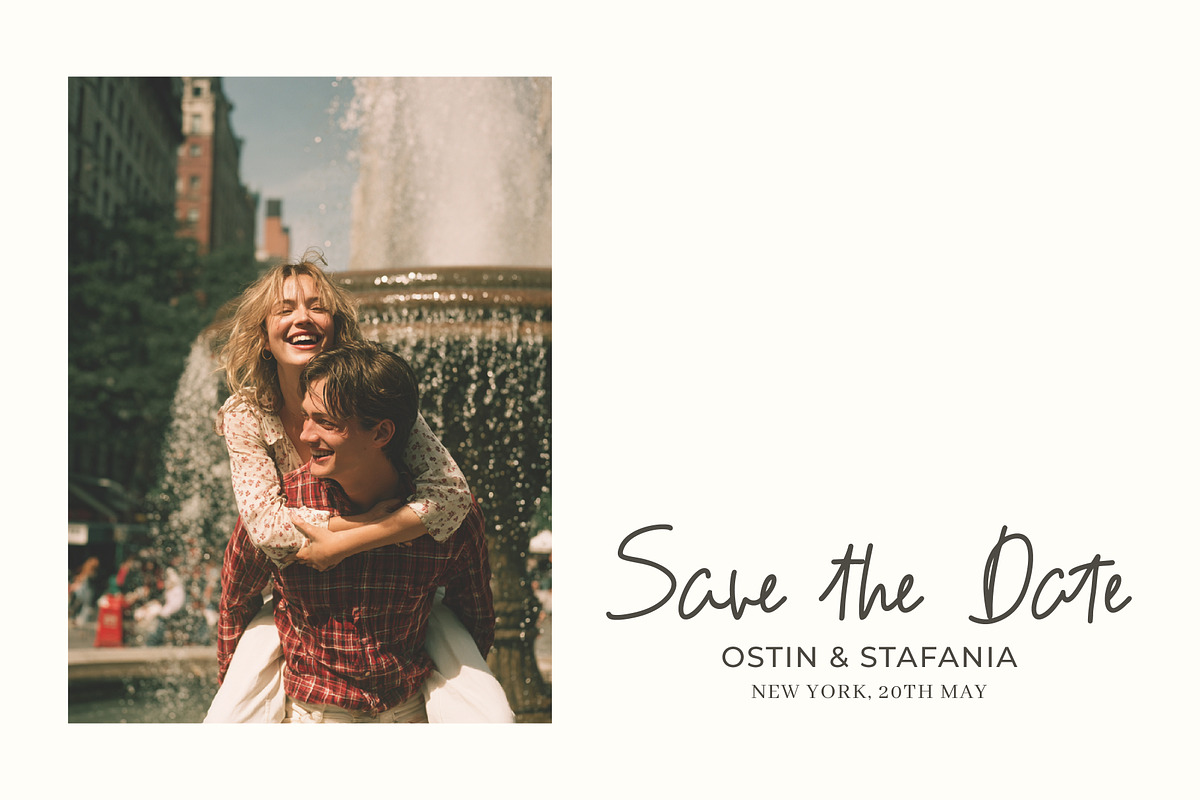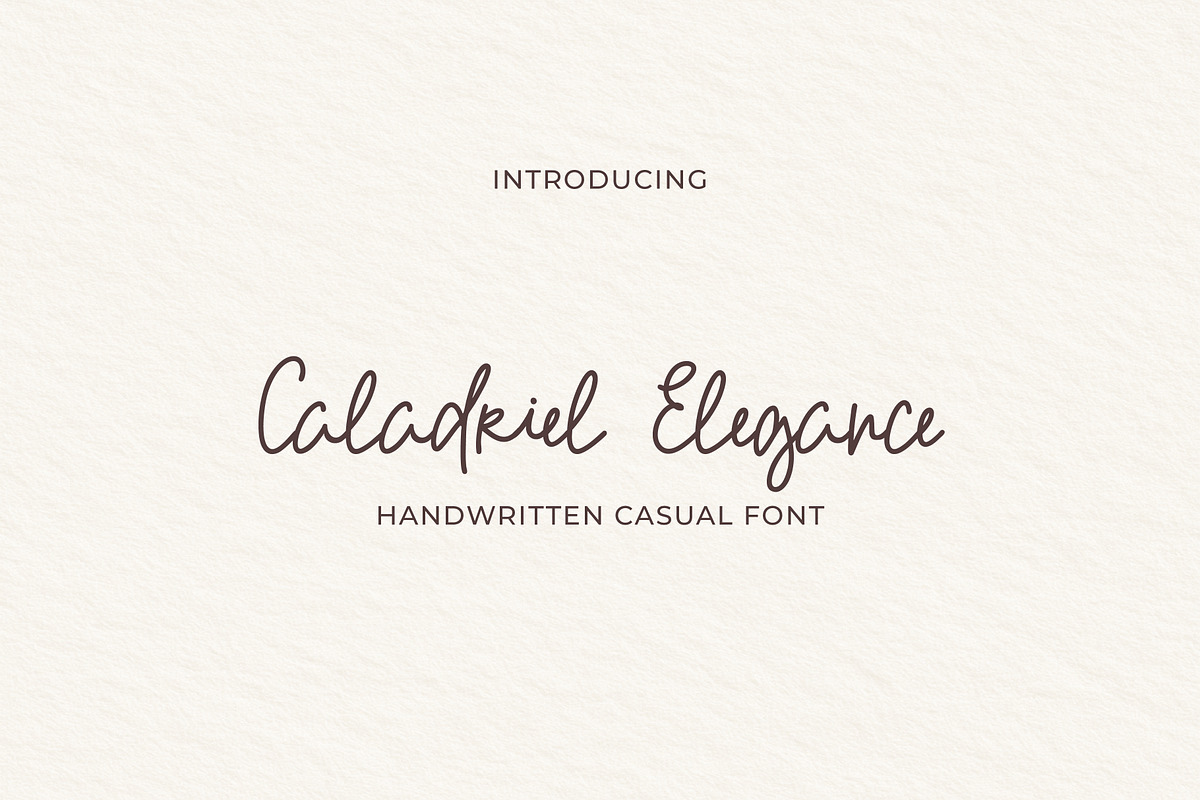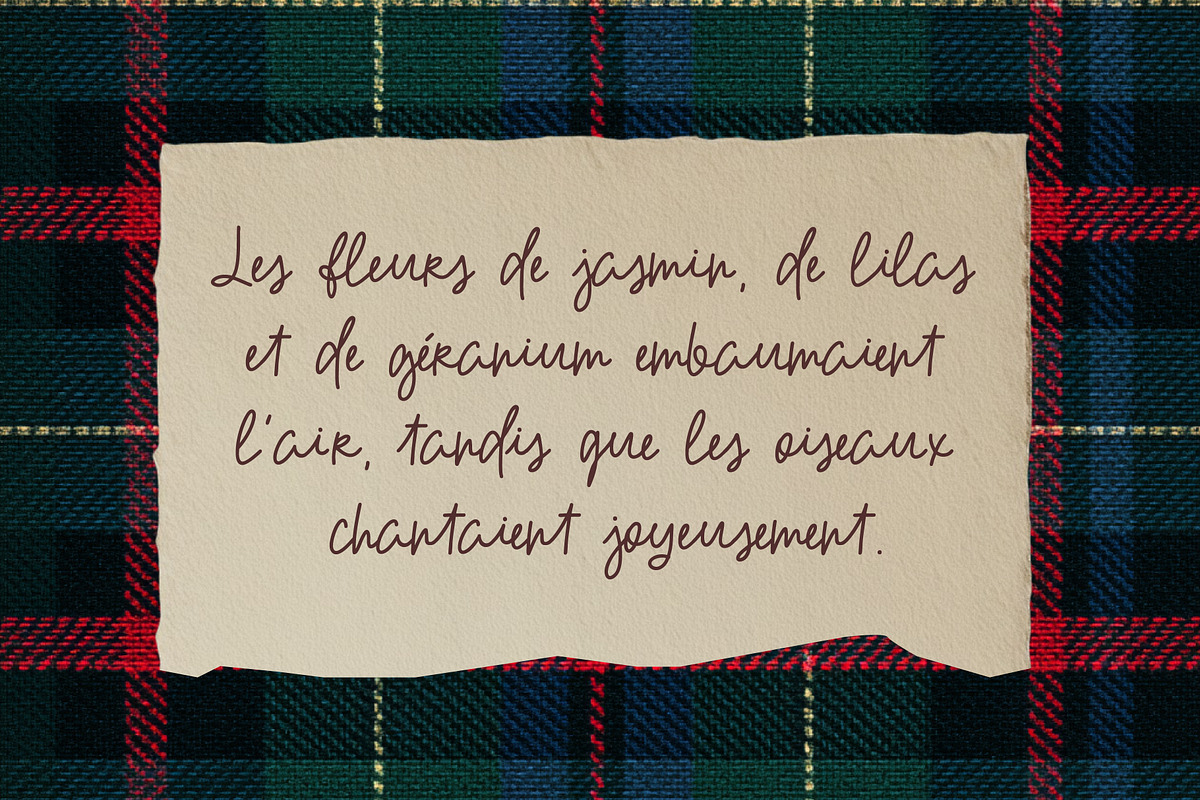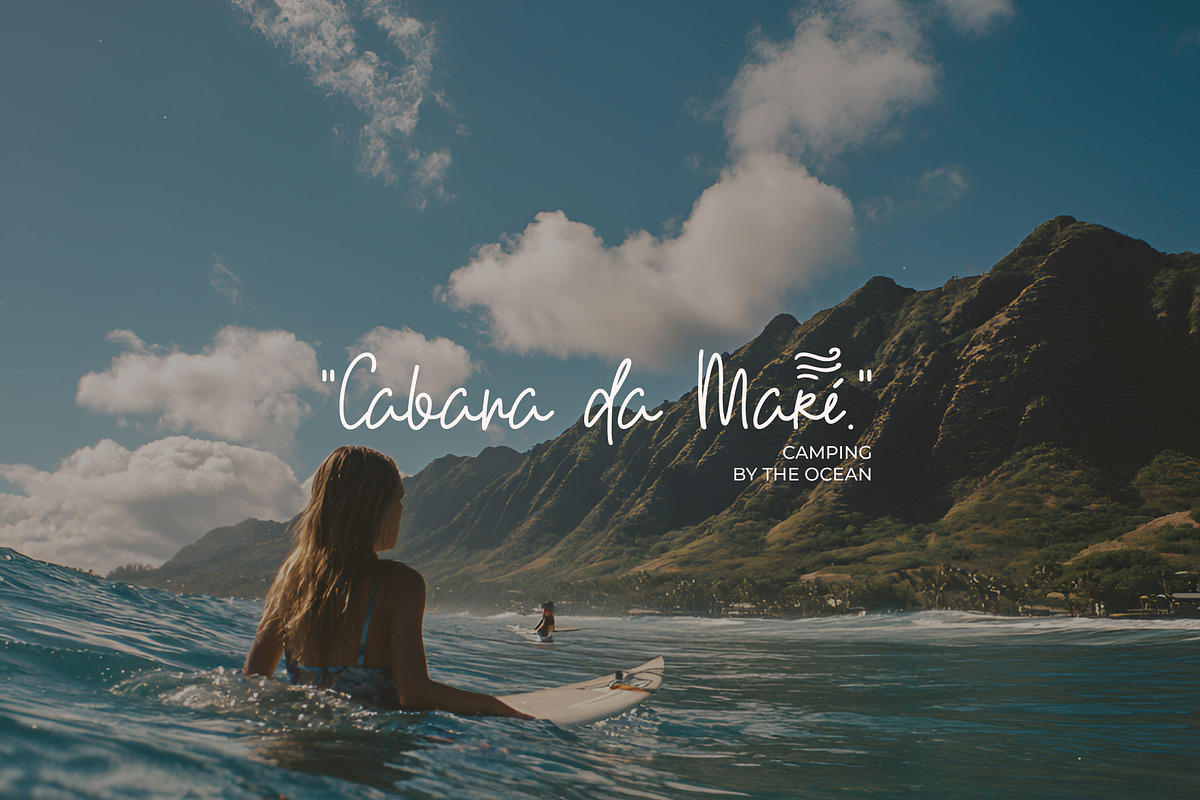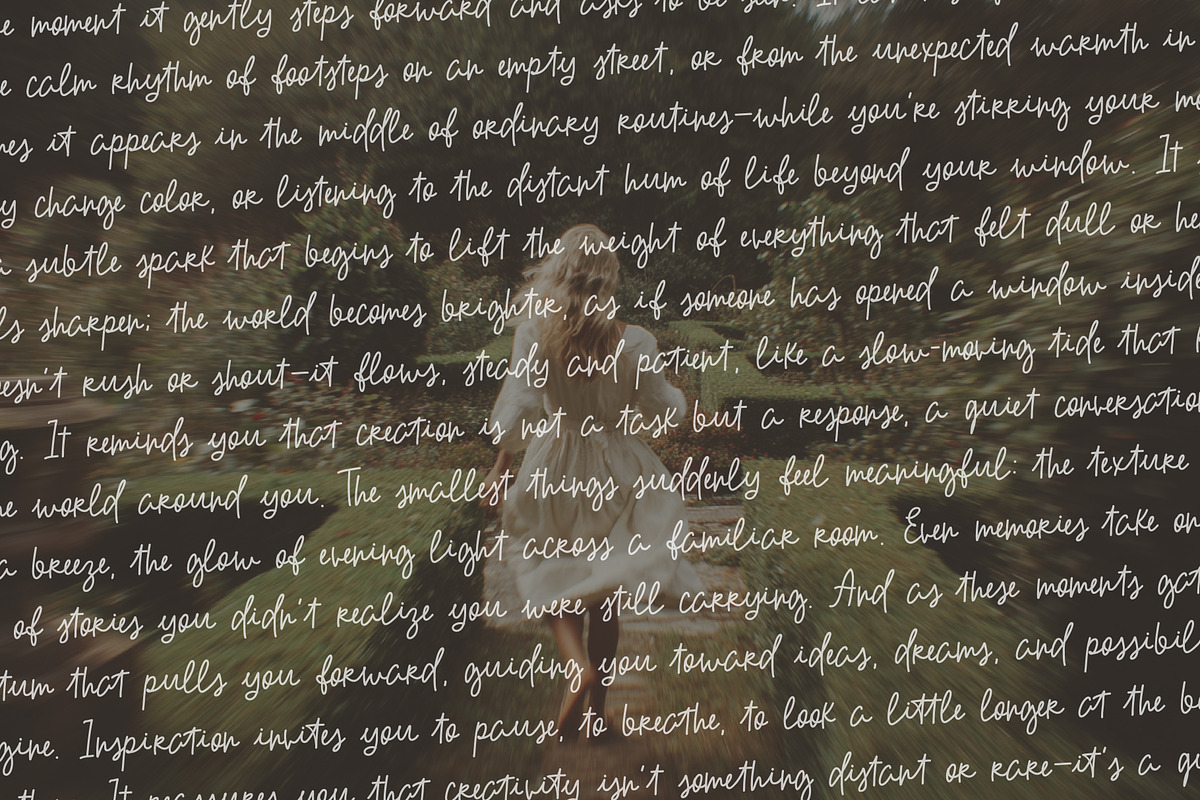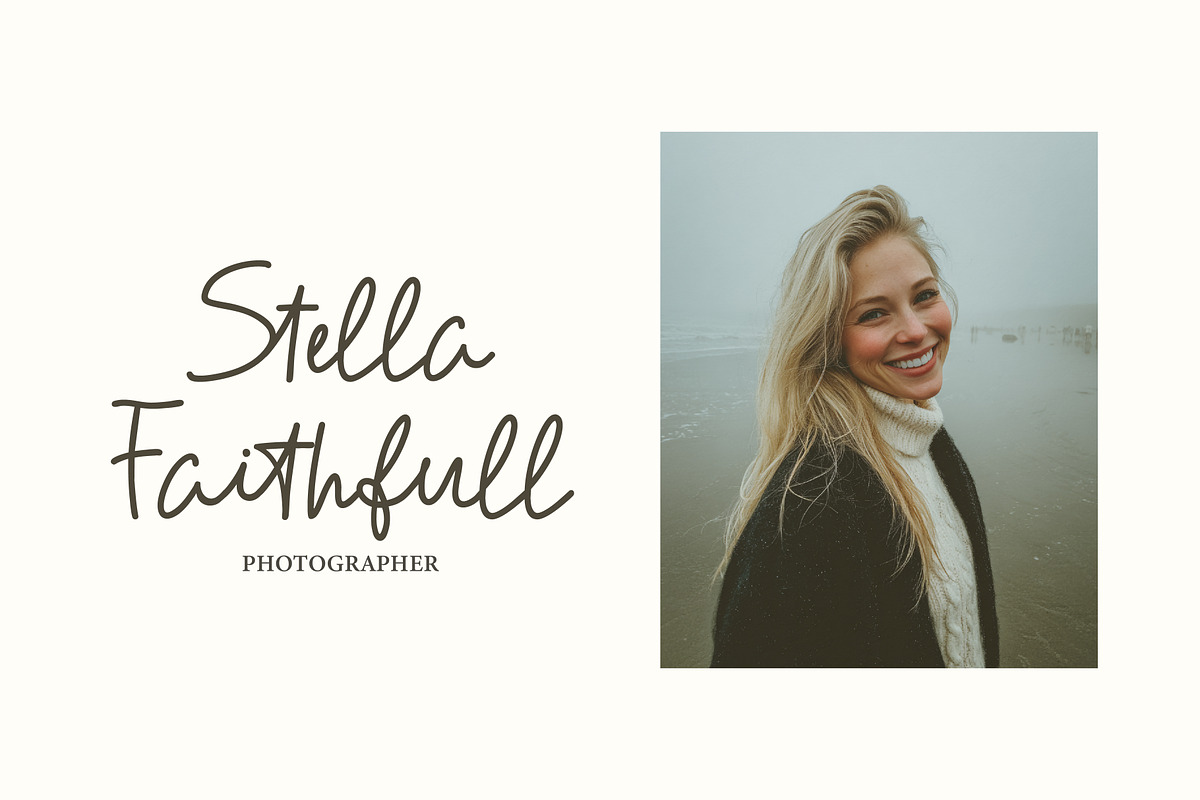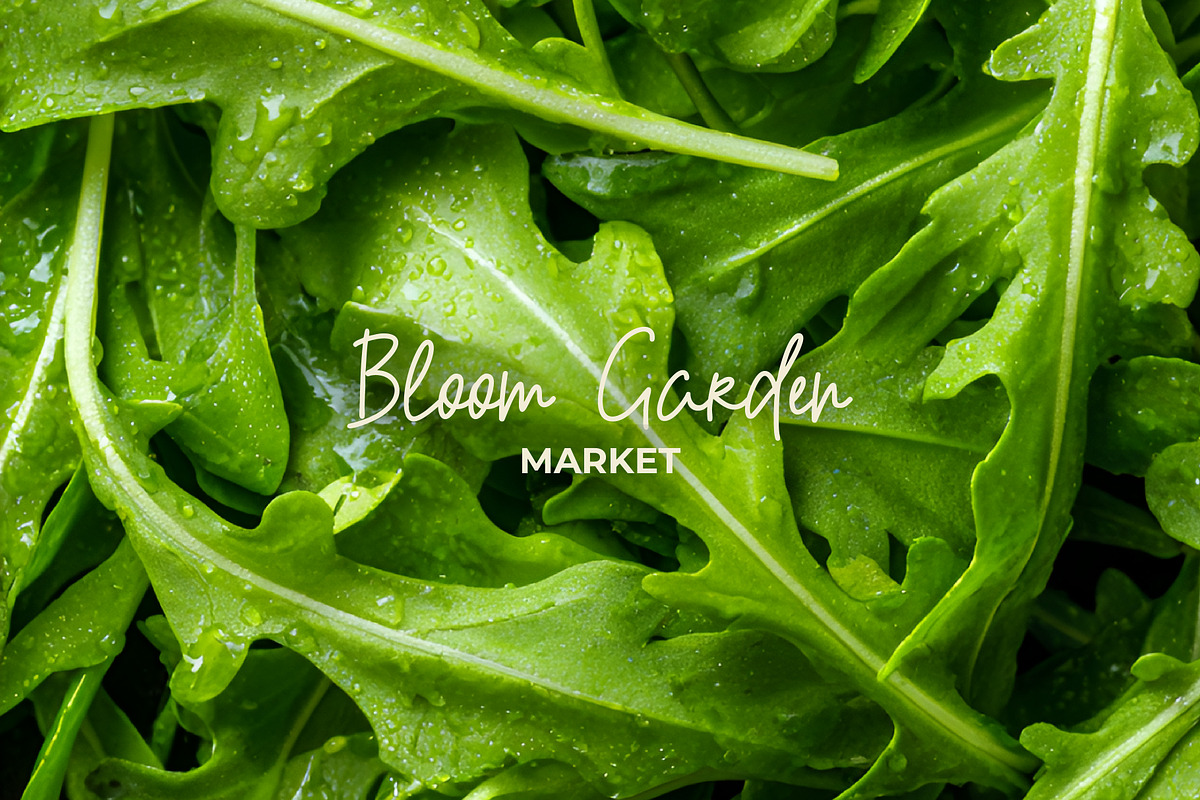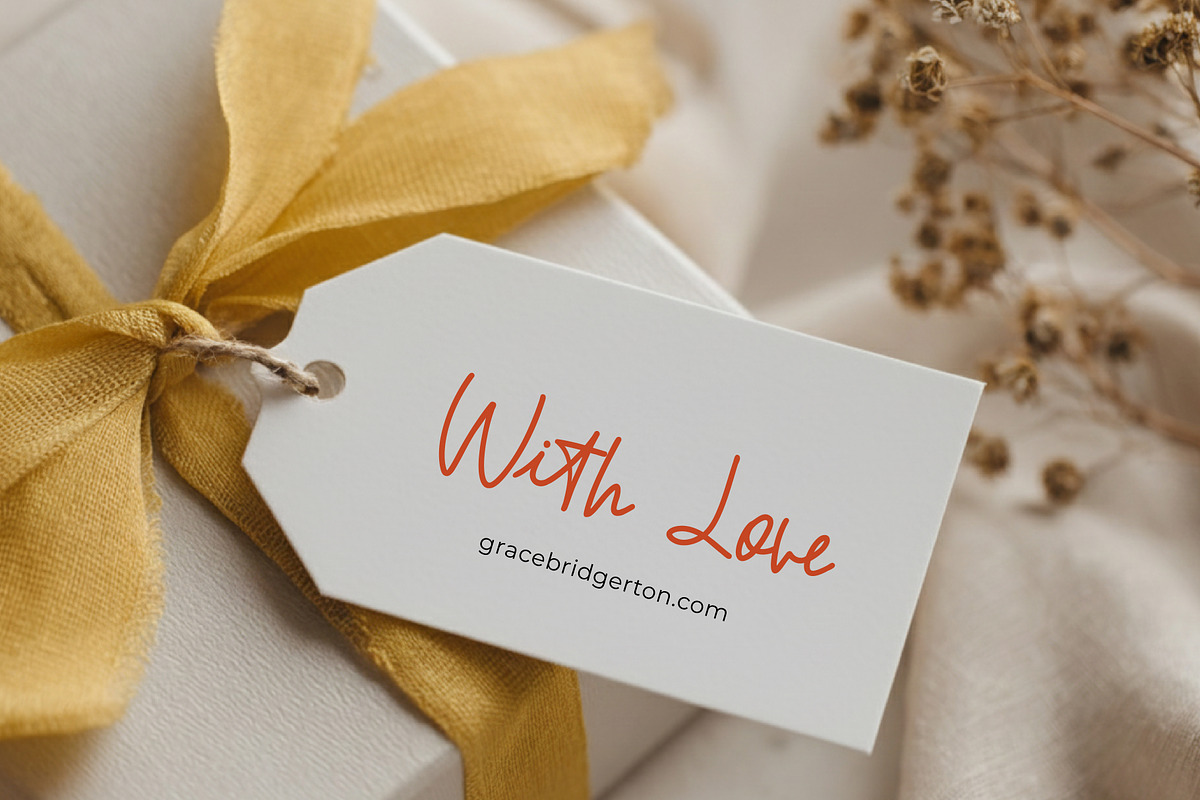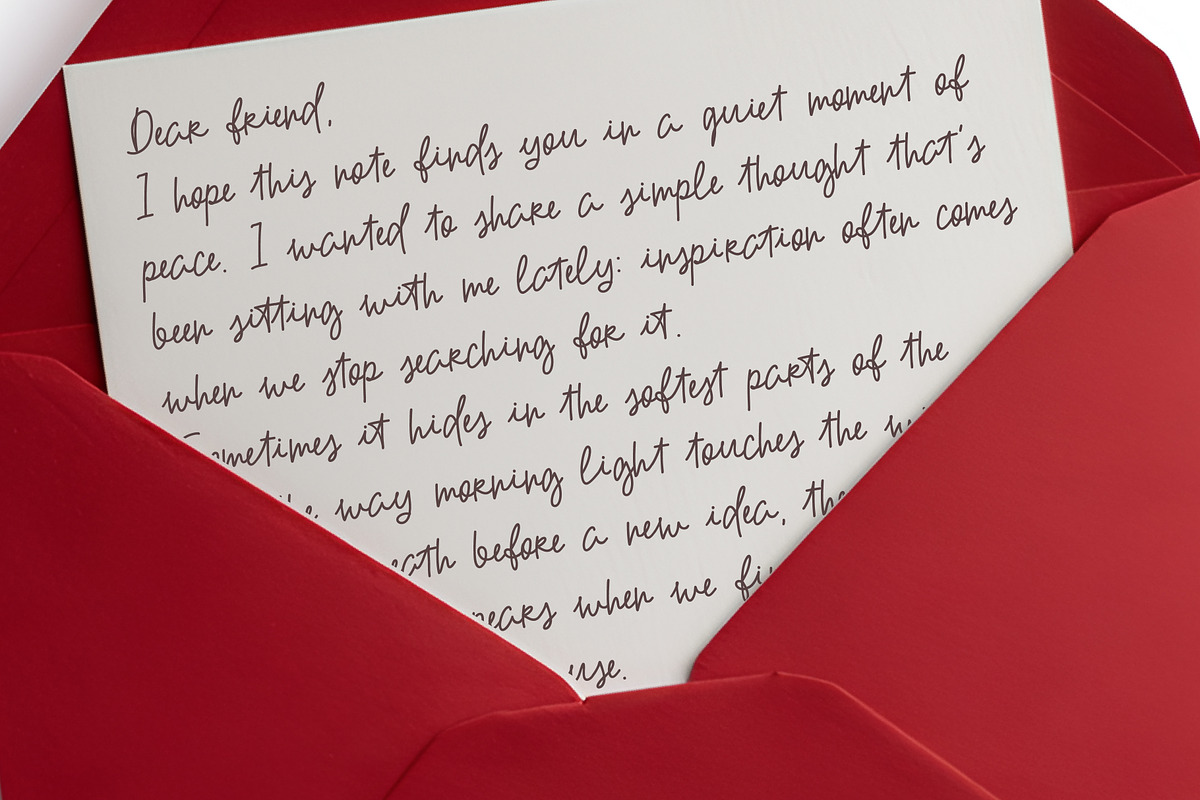
Caladriel Elegance Font
A soft monoline casual font designed to make your projects feel warm and approachable. Perfect for branding, small business logos, social media graphics, invitations, magazines and creative everyday layouts. A little classy, a little cozy — just right.